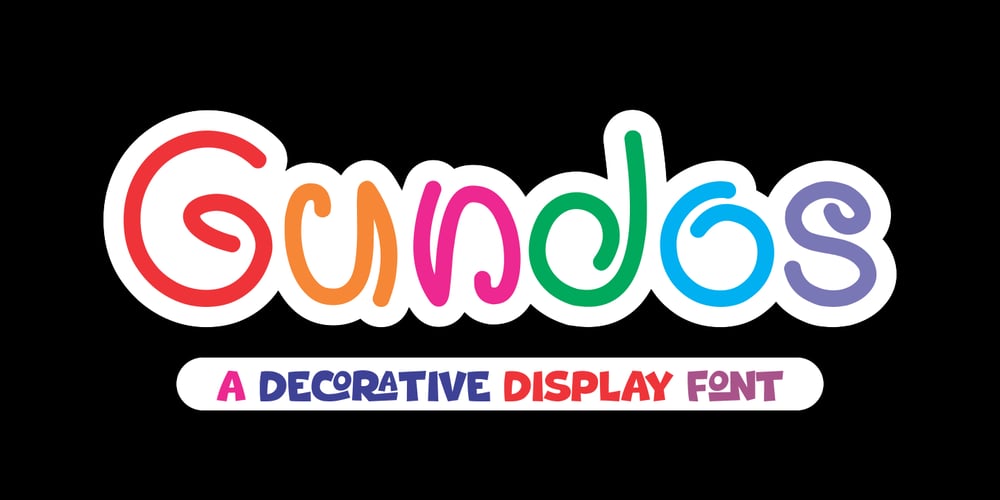
Gundos
Gundos font
Gundos Font Family was designed by Muhammad Nazarudin and published by Niznaztype. Gundos contains 2 styles and family package options. Gundos is a decorative typeface. This font created base on arounded corner and thick lines. Simple and cute style of this fontdesigned. Gundos will give a different taste in your design.Graphic designs such as poster, book cover, kids themes, comicthemes and others suitable to use this font.Gundos consist of :Uppercase, lowercase, numeral and punctuation and multilingual.Please, enjoy it with Gundos, a new decorative display font.If you have any question, please send to emnazar2009@gmail.comThank a lot